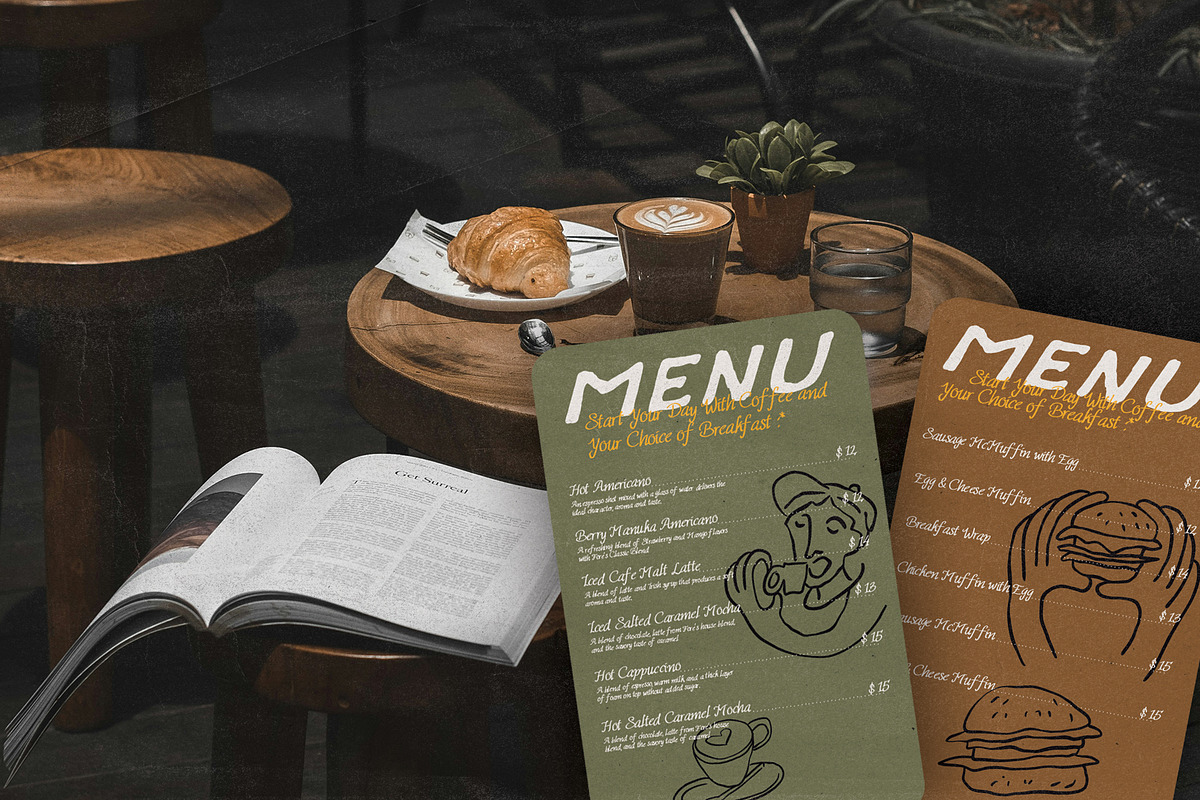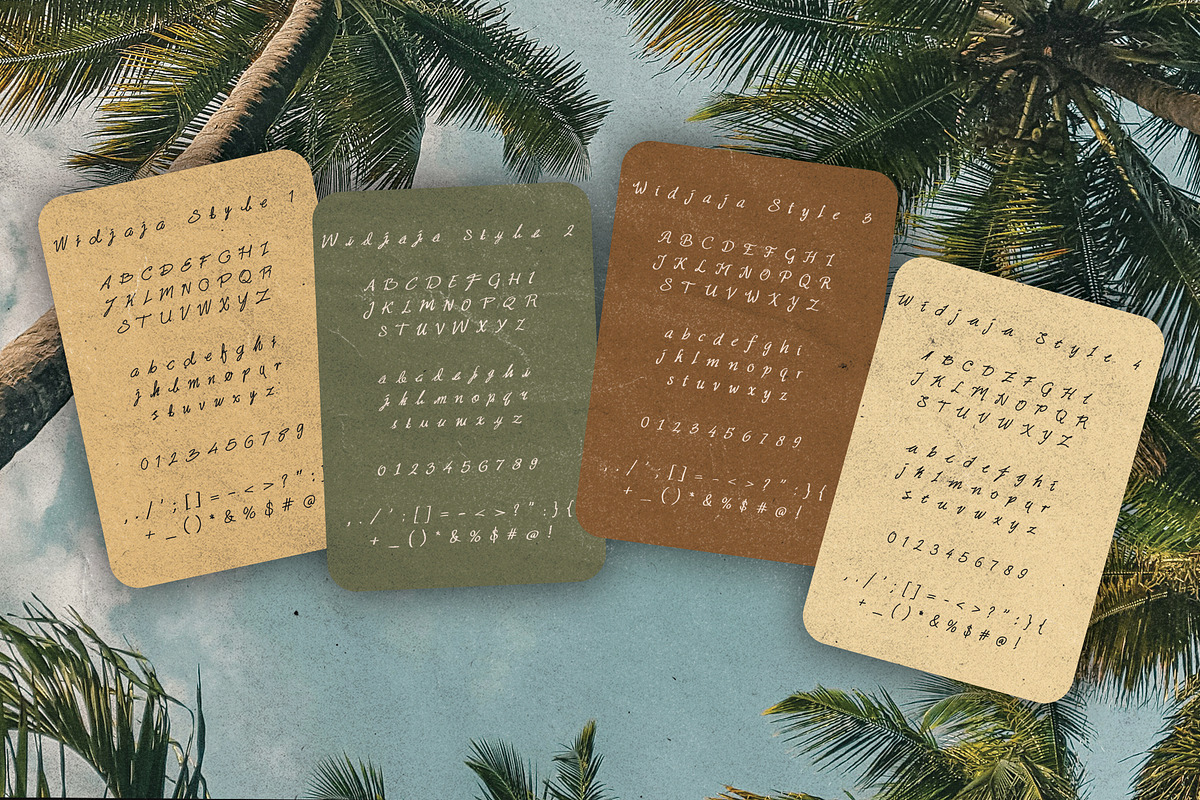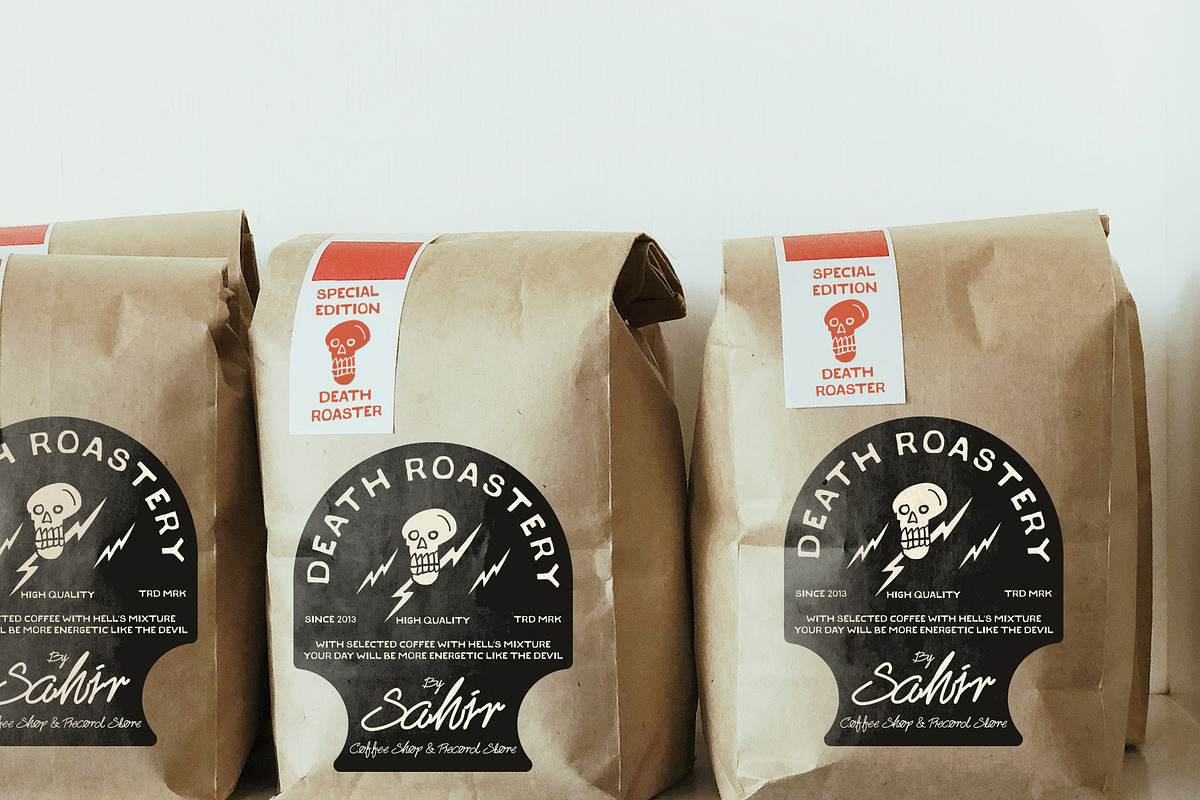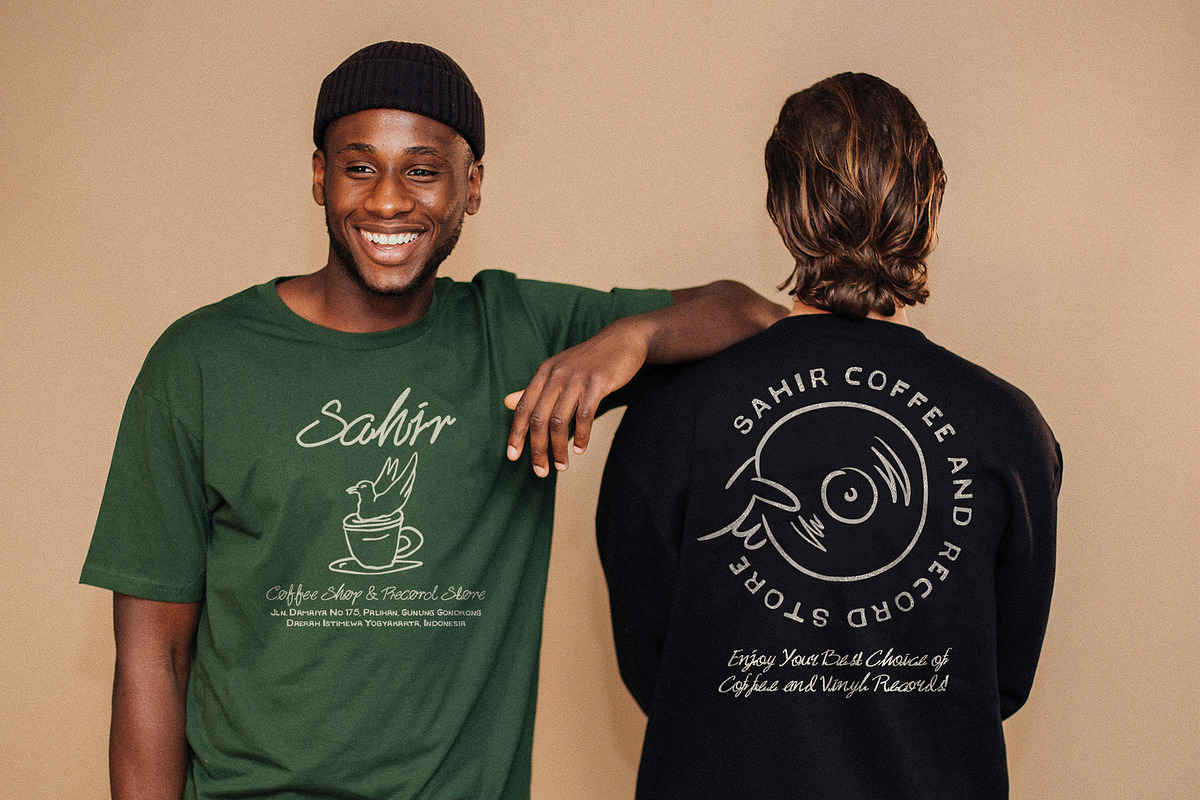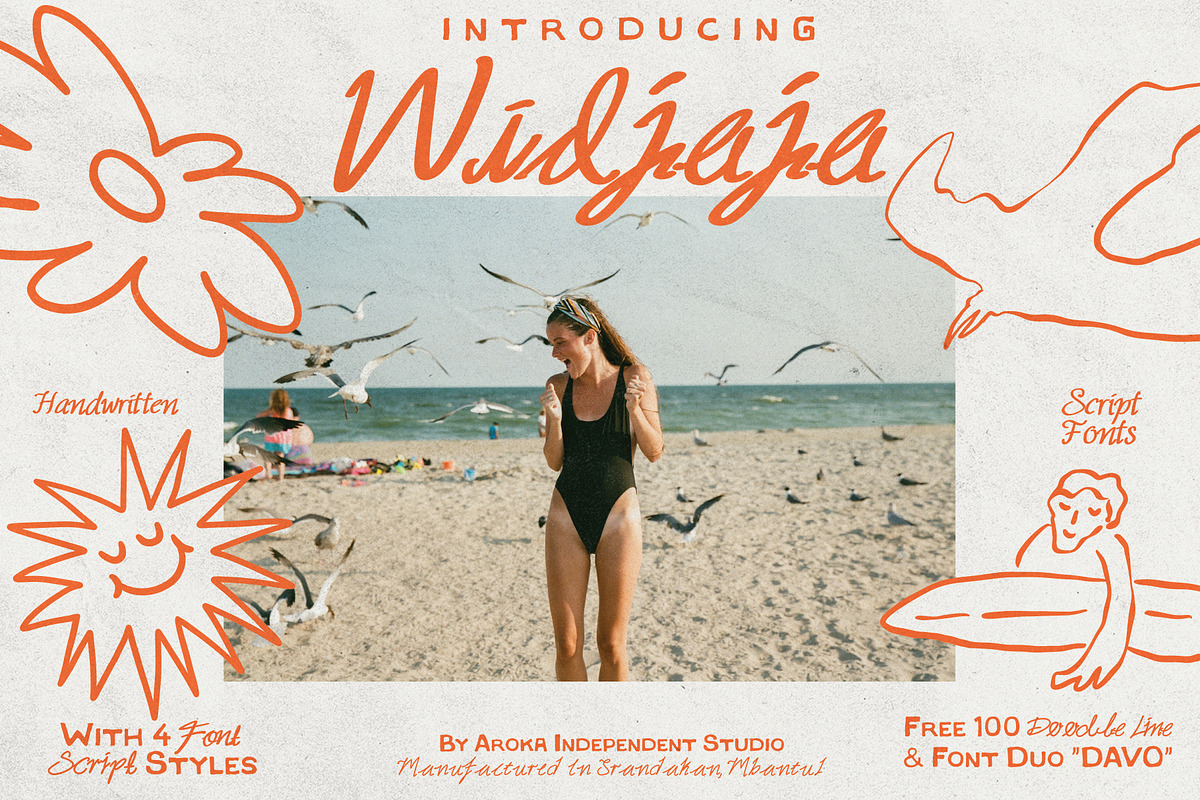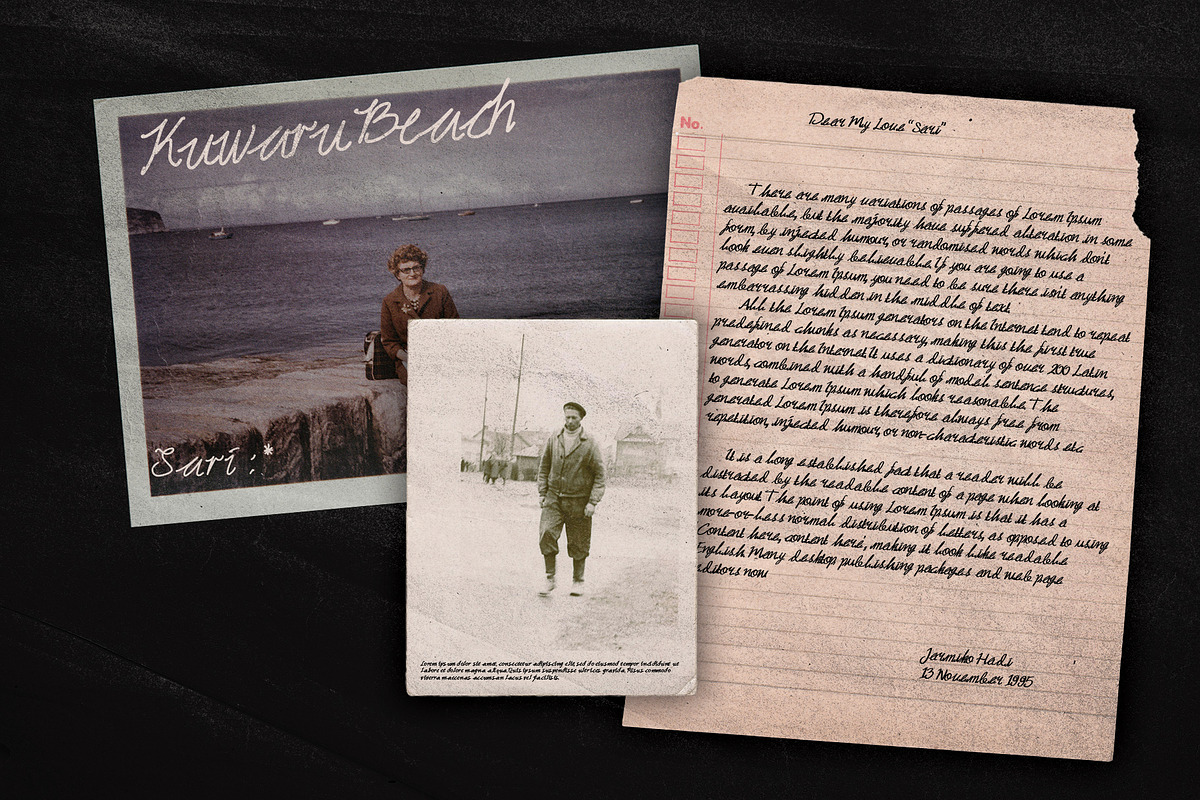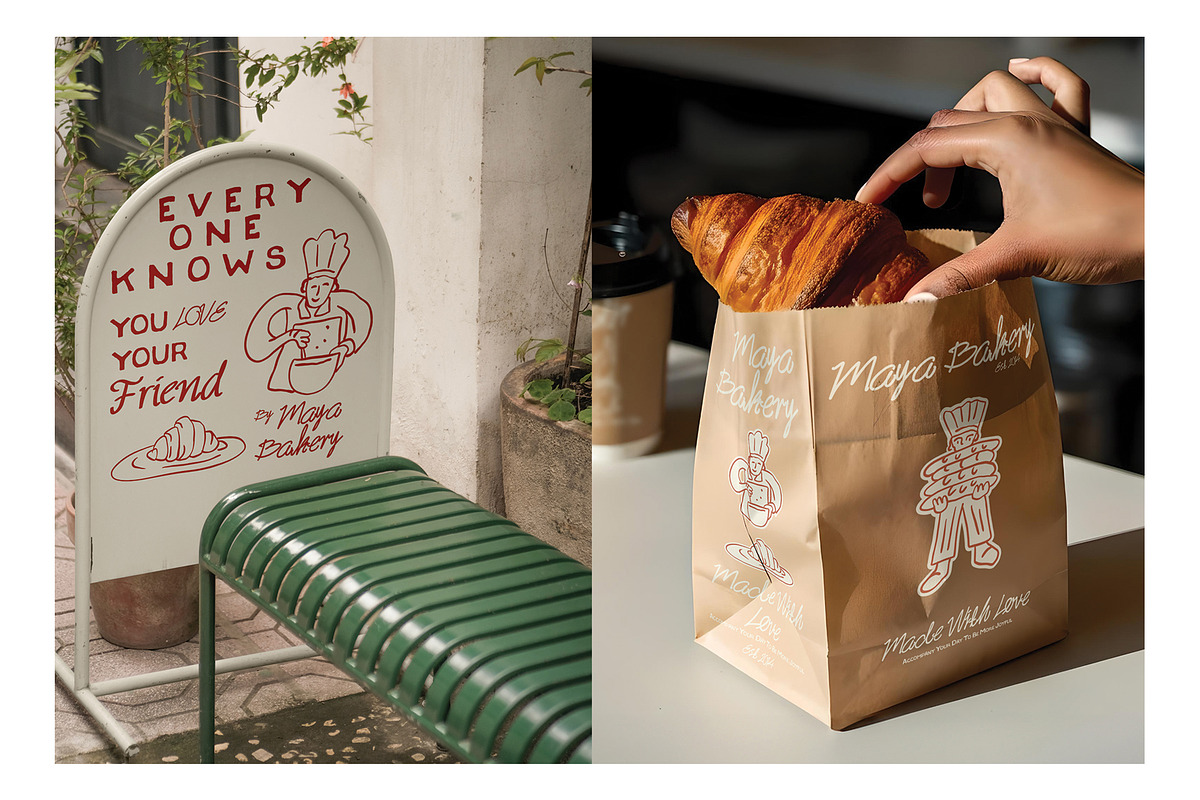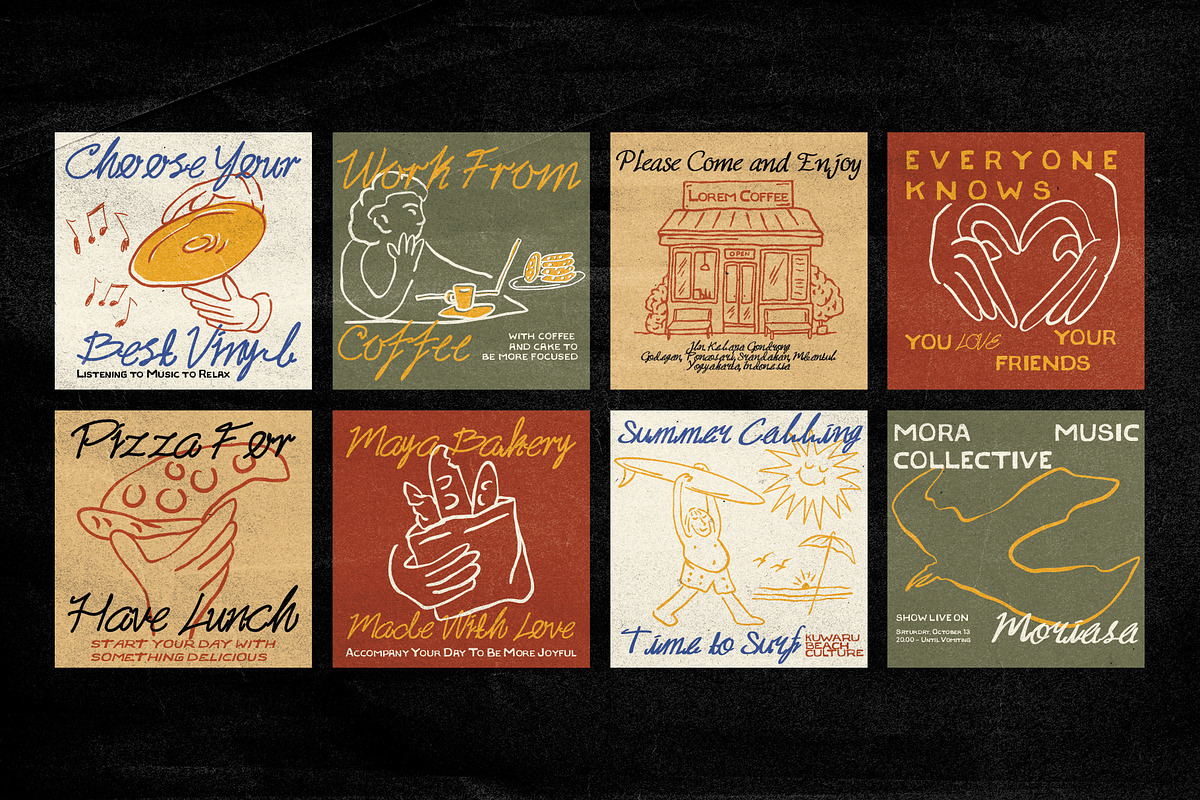
Widjaja Handwritten Script
inspired by my father's writing! there are 4 types for "Widjaja" Font, with a bonus of vintage handdrawn font duo "Davo" there is also a bonus of 100 hand drawn icons, with Ai, Pdf, SVG, Png formats too, enjoy!